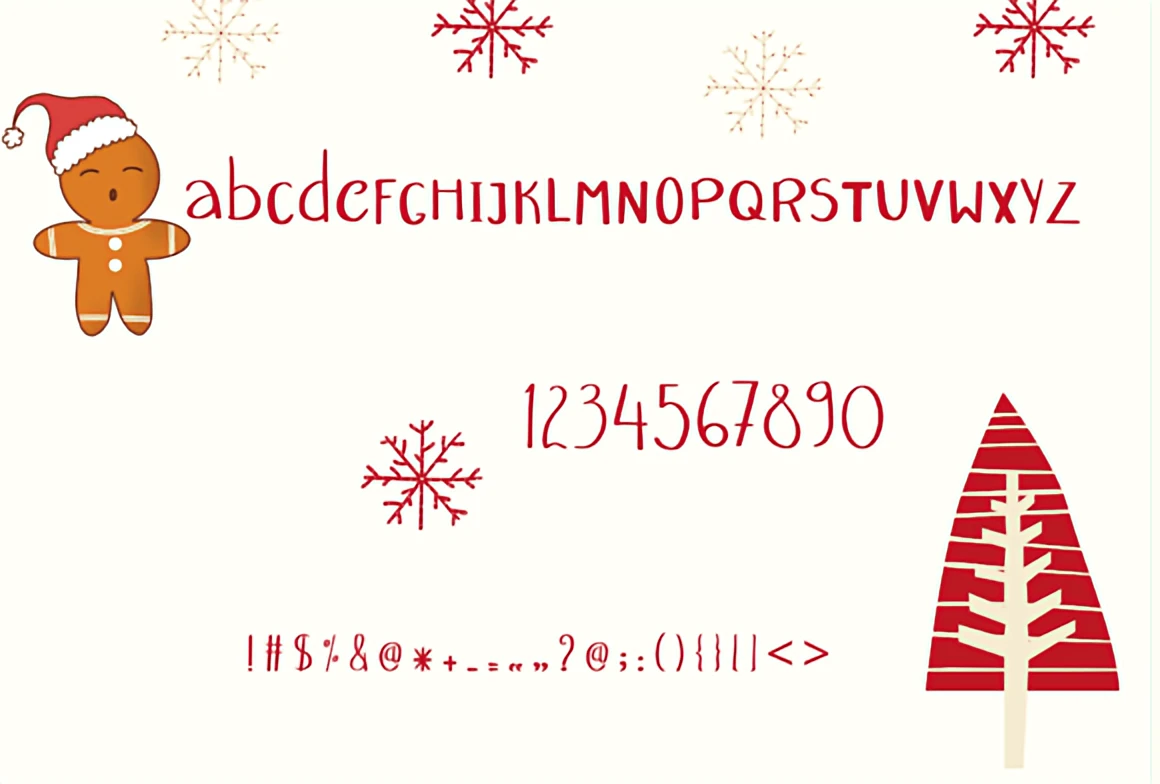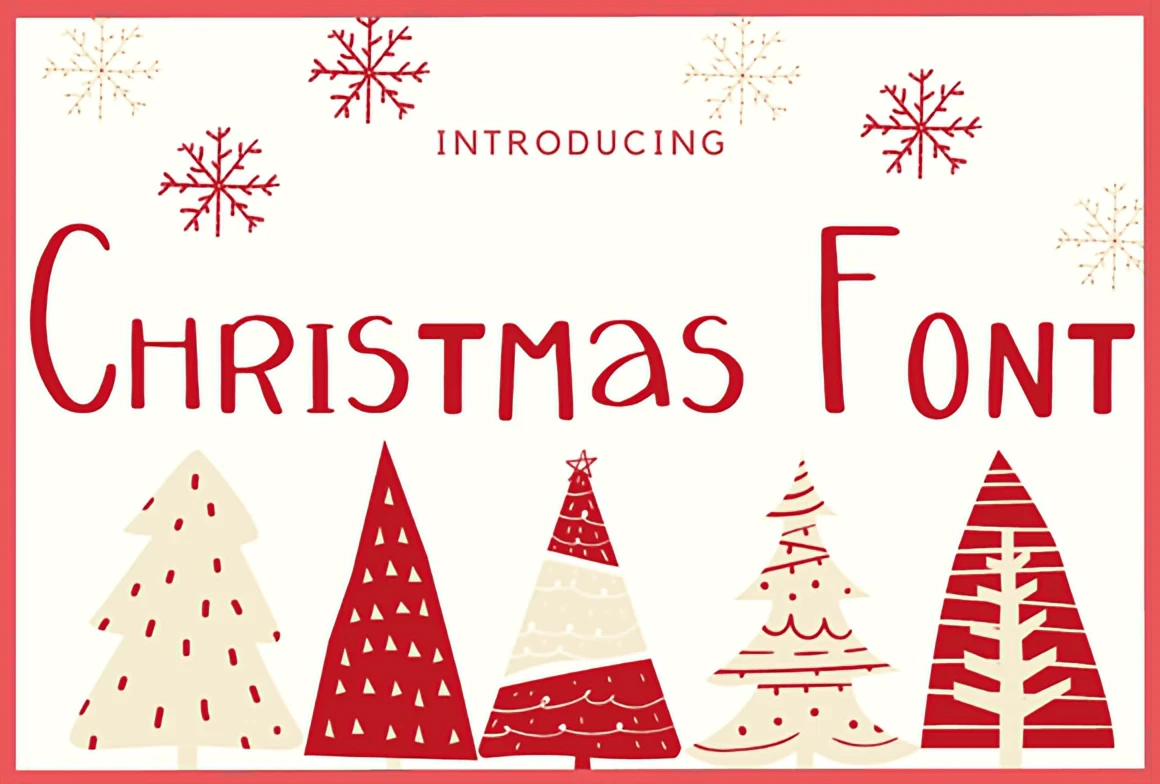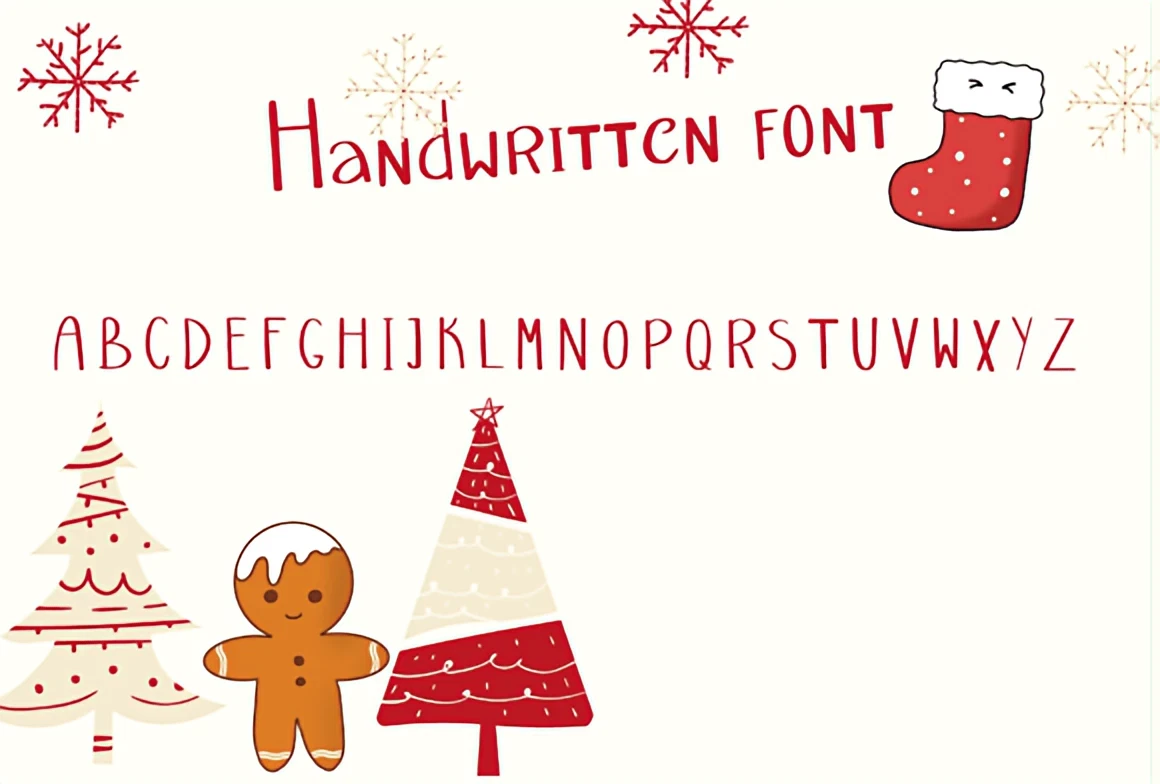
The Christmas Font is a handwritten style that’s fun, easy to read, and really cute. It’s perfect for adding some holiday spirit and a personal touch to whatever you’re working on.
It has a playful, doodle-like style that brings out the joy of Christmas. It’s not just for the holidays, though; it works great for kids’ crafts and other casual projects anytime.
The simple handwriting style is good for T-shirts, baby clothes, nursery decorations, cards, and school stuff. People who design things really like how it looks because it feels handmade and adds a nice, warm feeling to anything.
This Christmas font mixes a childlike doodle style with the readability of a clear font. This means you can use it for learning materials, teaching aids, or even to make a brand seem more fun. It works well with cutting machines like Cricut and Silhouette, as well as design programs like Canva, Procreate, Illustrator, and Photoshop.
Whether you’re making decorations, labels for school, sweet holiday cards, or digital art, this font gives your ideas a fun, unique style. It’s great for winter parties, New Year’s designs, holiday presentations, and just making everyday stuff look more creative.
If you want to add a bit of happiness and simplicity to your work, the Christmas Font is a great pick. It makes everything feel festive, heartfelt, and full of character.